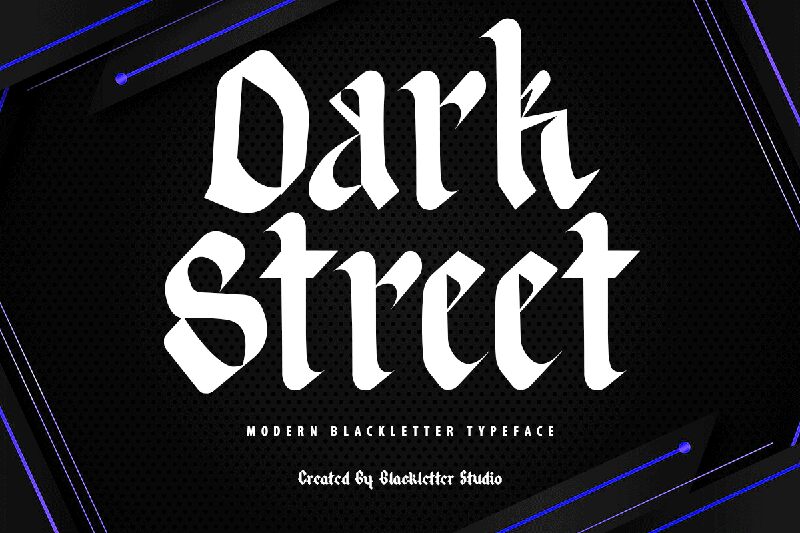
Dark Street
Dark Street is the perfect font for projects that require a bold and impactful statement. Designed by Blackletter Studio, this modern gothic typeface boasts a condensed width that adds an edgy feel to any design. The sleek lines and sharp angles of Dark Street will make your brand stand out from the crowd, whether you're creating a logo, poster or website. Use it for fashion, music or nightclub promotions to give your project an urban and mysterious vibe. With its unique style and versatility, Dark Street is sure to become your go-to font for all things dark and daring.